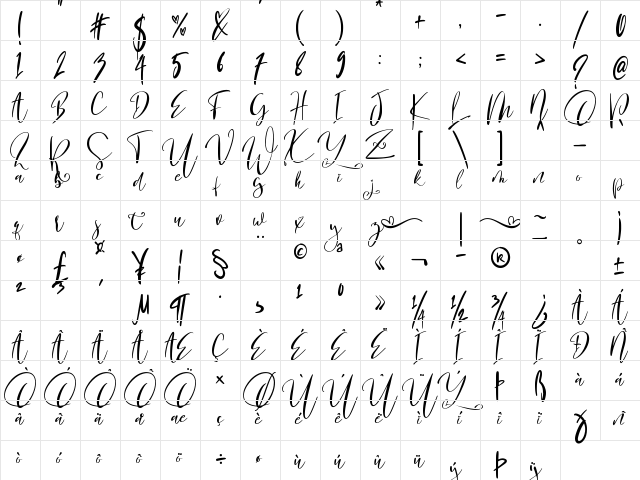
Sweater Script Regular
| Designer | Noftanti Studio 2020 (Ike Nof Tanti) |
Design Context for Sweater Script Typeface
Sweater Script flows with the natural rhythm of handwritten lettering, making it ideal for designs that call for warmth and personal expression.
Font Pairing: Combine Sweater Script with a simple geometric sans for maximum contrast — the tension between flowing curves and clean structure is a classic typographic pairing.
Pro Tip: Use Sweater Script for short runs of text — names, titles, or taglines. Extended body copy in script faces tires the eye quickly.